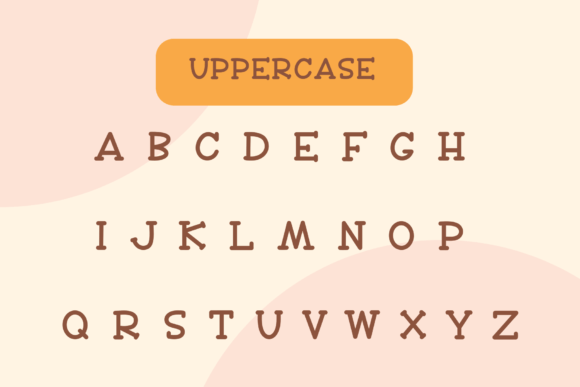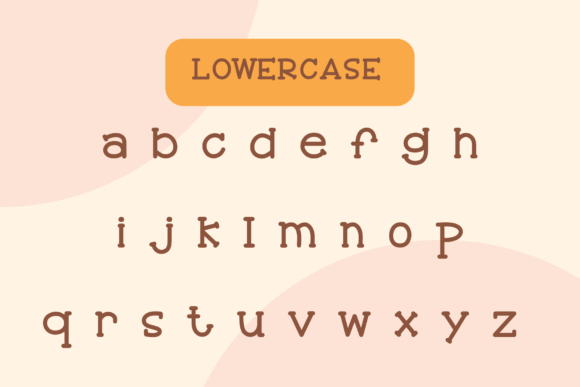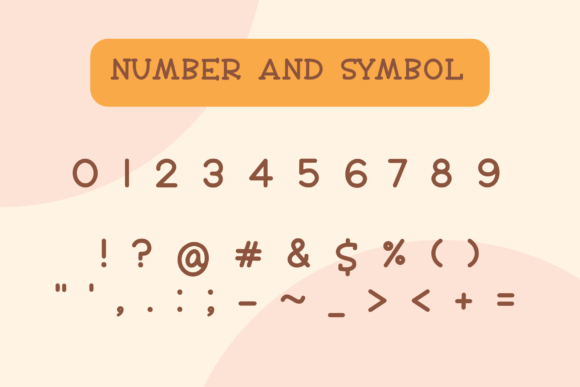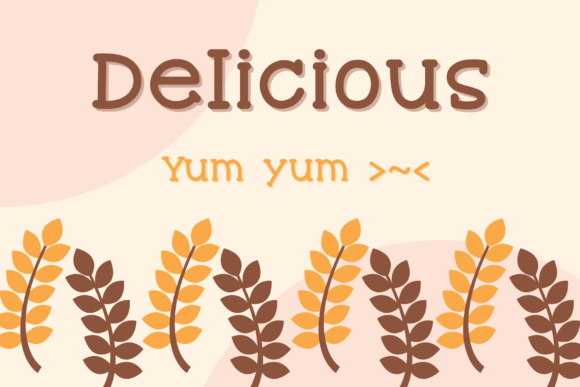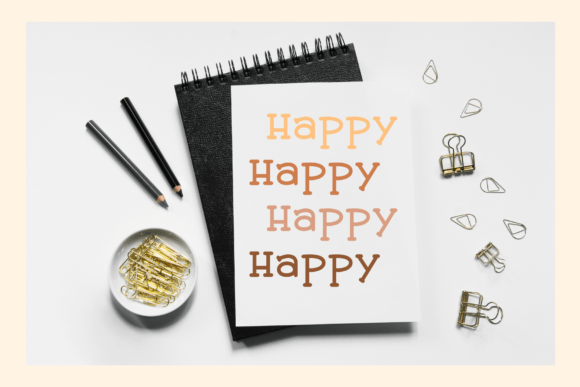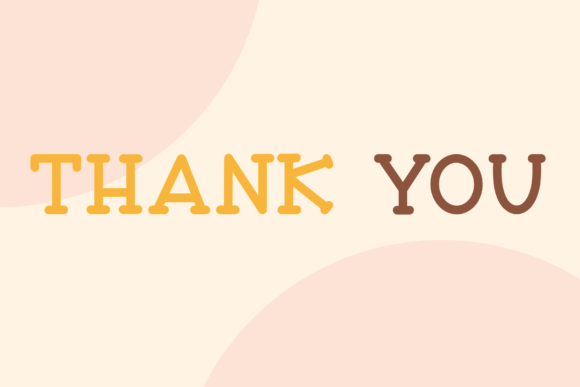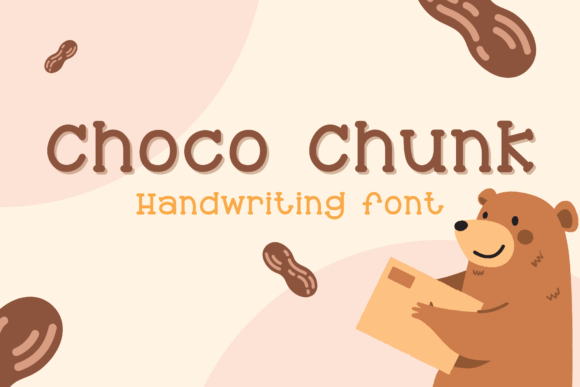
Introducing Choco Chunk Font: The Ultimate Cute and Playful Typeface
Are you looking for a font that exudes adorable charm and is filled with delightful design elements? Look no further than Choco Chunk Font! This vibrant and irresistibly cute typeface is characterized by its simplicity and cuteness that’s hard to resist. In this article, we’ll dive into the world of Choco Chunk Font and explore its features, benefits, and uses.
The Charm of Choco Chunk Font
Choco Chunk Font is a soft, gentle, and warm typeface that evokes feelings of love and warmth. Its cute style adds a touch of sweetness and playfulness to any project, making it perfect for designers and crafters who want to create something truly special. Whether you’re working on a project for kids or anything that requires a cute aesthetic, Choco Chunk Font is the ideal choice.
Features of Choco Chunk Font
- Adorable Design Elements: Choco Chunk Font is filled with delightful design elements that make it stand out from other fonts.
- Vibrant and Cute Atmosphere: This font exudes a vibrant and irresistibly cute atmosphere that’s perfect for projects that require a playful touch.
- Soft and Gentle: Choco Chunk Font is a soft and gentle typeface that evokes feelings of warmth and love.
- Simple yet Effective: Despite its simplicity, Choco Chunk Font is a highly effective font that can add a touch of sweetness and playfulness to any project.
Uses of Choco Chunk Font
So, what can you use Choco Chunk Font for? The possibilities are endless! Here are some ideas to get you started:
- Designing Printed Materials for Kids: Choco Chunk Font is perfect for designing printed materials for kids, such as children’s books, activity sheets, and educational resources.
- Creating Websites Related to Childcare: This font is ideal for creating websites related to childcare, such as parenting blogs, children’s product reviews, and kids’ entertainment websites.
- Designing Logos for Children’s Stores: Choco Chunk Font is a great choice for designing logos for children’s stores, toy stores, and kids’ clothing brands.
- Crafting and DIY Projects: This font is also perfect for crafters and DIY enthusiasts who want to add a touch of cuteness to their projects, such as handmade cards, gift tags, and scrapbooking.
Benefits of Using Choco Chunk Font
So, why should you use Choco Chunk Font for your next project? Here are some benefits to consider:
- Adds a Touch of Cuteness: Choco Chunk Font adds a touch of cuteness and playfulness to any project, making it perfect for projects that require a youthful and vibrant vibe.
- Easy to Read: This font is highly legible and easy to read, making it perfect for body text and headings.
- Versatile: Choco Chunk Font is a versatile typeface that can be used for a wide range of projects, from digital to print.
- Unique and Creative: This font is a unique and creative typeface that can help you stand out from the crowd and add a touch of personality to your project.
In conclusion, Choco Chunk Font is a delightful typeface that exudes adorable charm and is filled with delightful design elements. Its vibrant and irresistibly cute atmosphere makes it perfect for projects that require a playful touch. With its soft and gentle design, Choco Chunk Font is ideal for designers and crafters who want to create something truly special. Whether you’re working on a project for kids or anything that requires a cute aesthetic, Choco Chunk Font is the perfect choice.